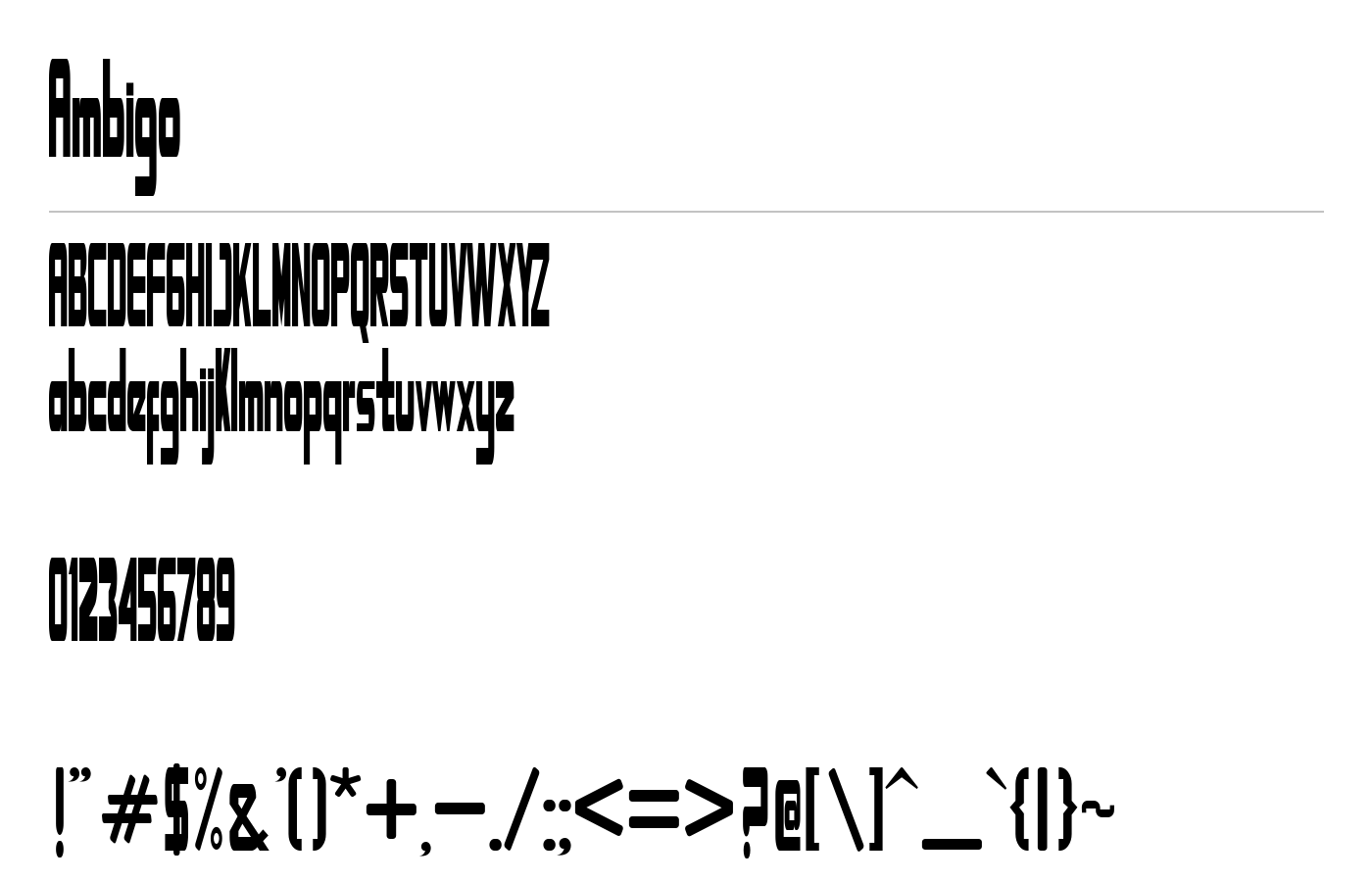
Ambigo is a bold, condensed sans serif font featuring tall, narrow letterforms with consistent heavy strokes and low contrast. Its strong geometric shapes and tight spacing give it a striking, modern look ideal for attention-grabbing headlines, posters, and branding that require a compact, impactful presence. This font works well when you want to convey strength and urban style in a clean, distinctive way.
Ambigo Font